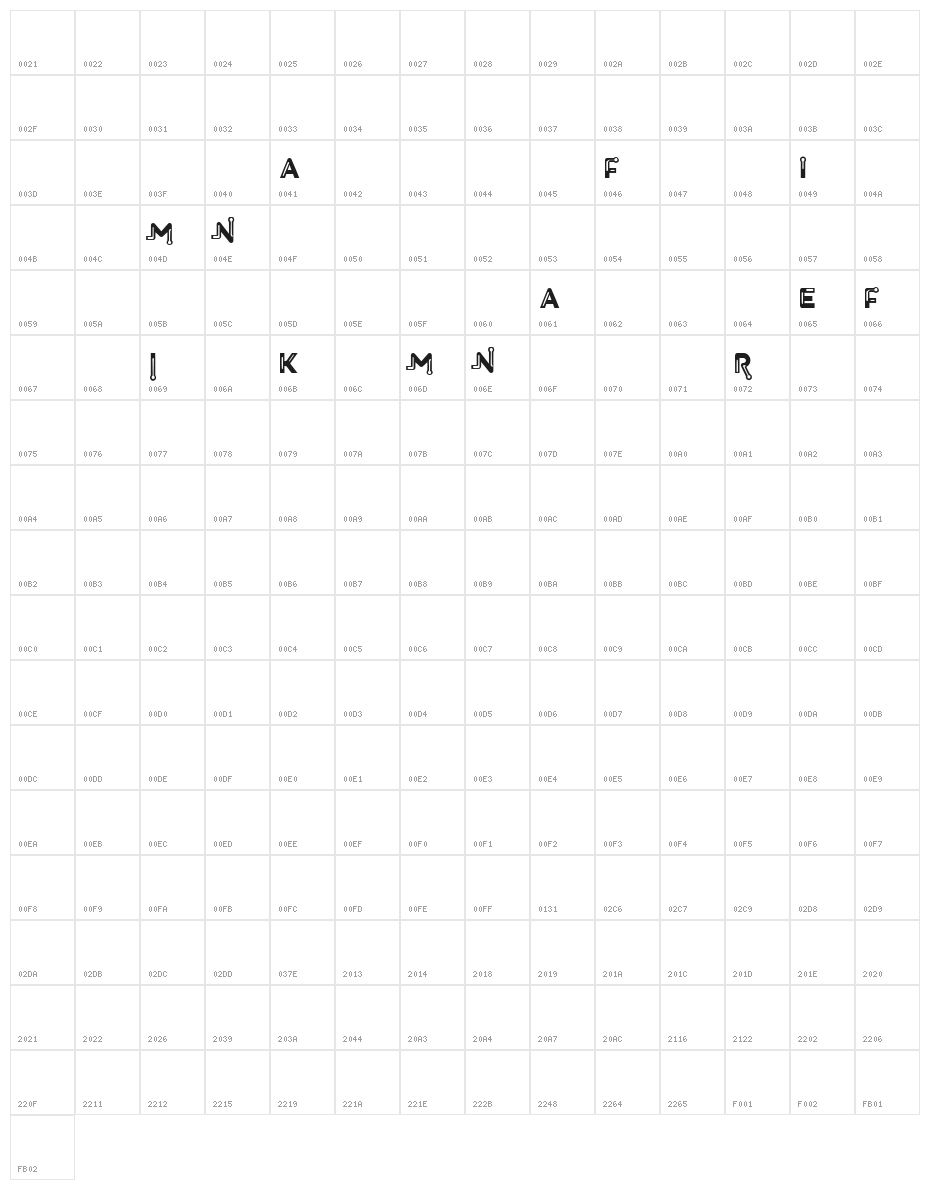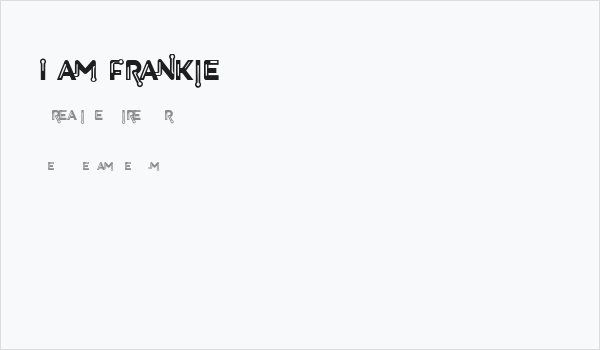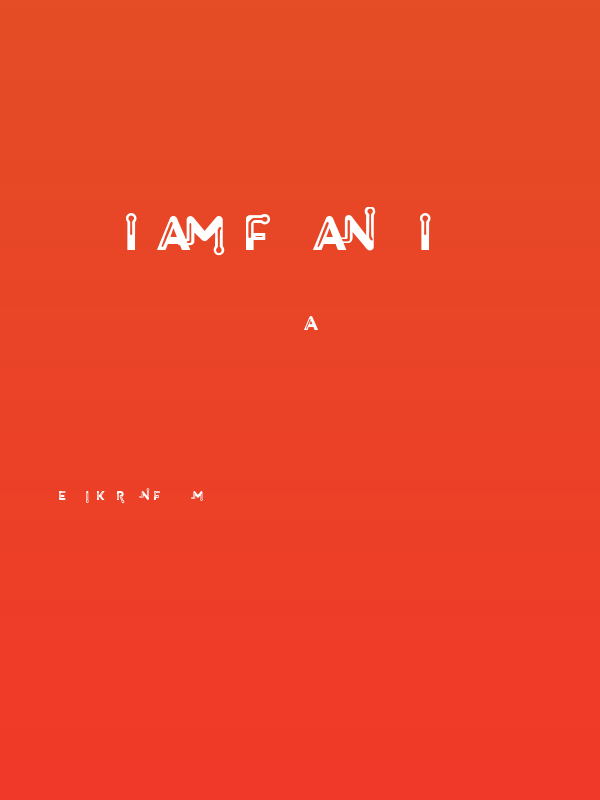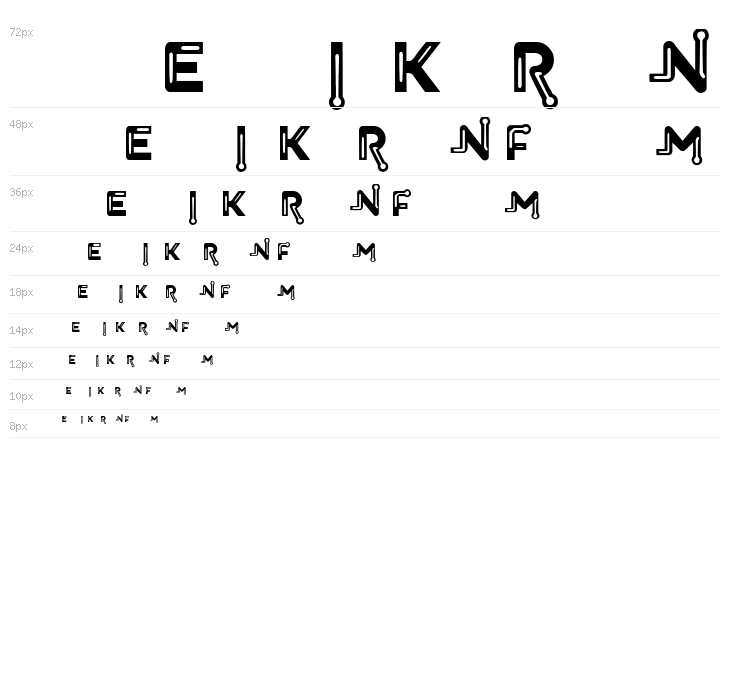
I Am Frankie Font
I Am Frankie Description
This font features a futuristic and technological design, characterized by its circuit-like elements and geometric shapes. Each letter is crafted with a unique blend of solid and outlined strokes, giving it a distinct digital appearance. The uppercase letters are bold and striking, with some characters incorporating rounded terminals that resemble electronic components. The overall design is clean and modern, making it suitable for projects that require a tech-savvy or innovative look.
| Use Case | Logos, Headlines |
| Proposed Projects | Ideal for technology branding, sci-fi movie posters, video game titles, and digital product packaging. |